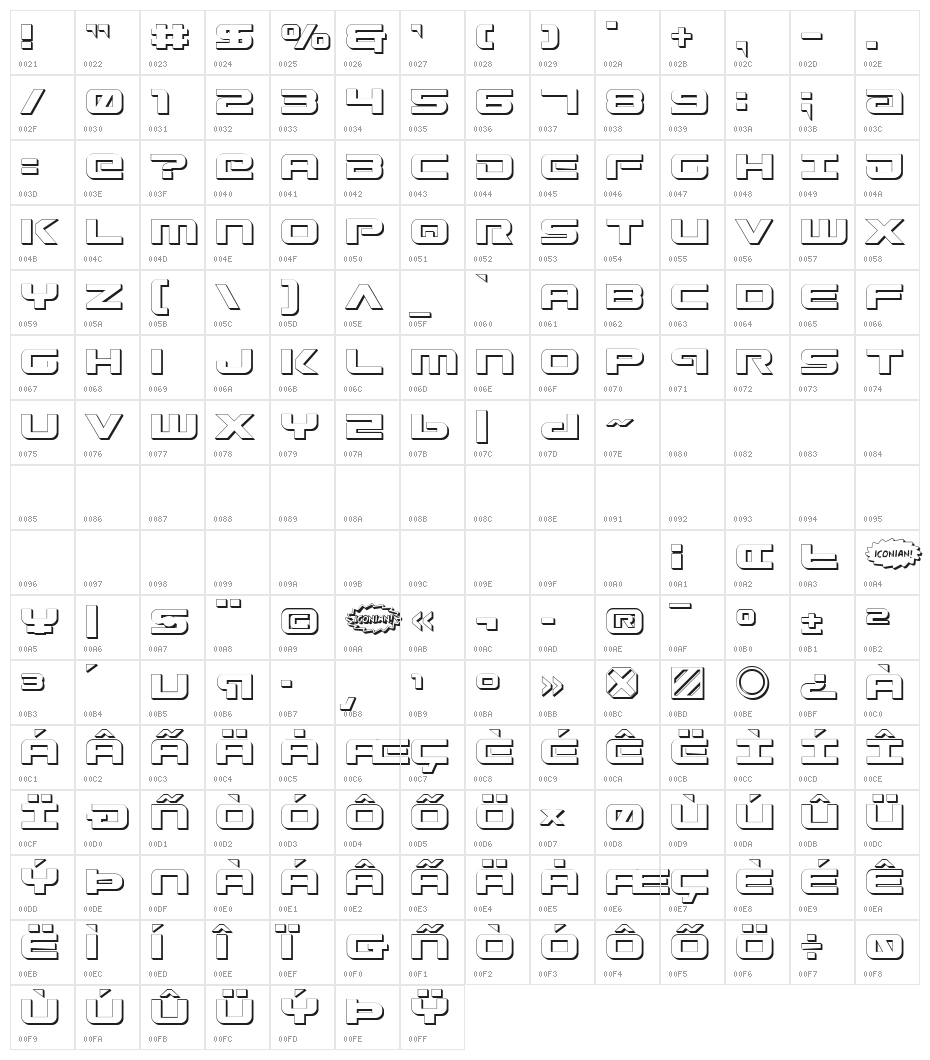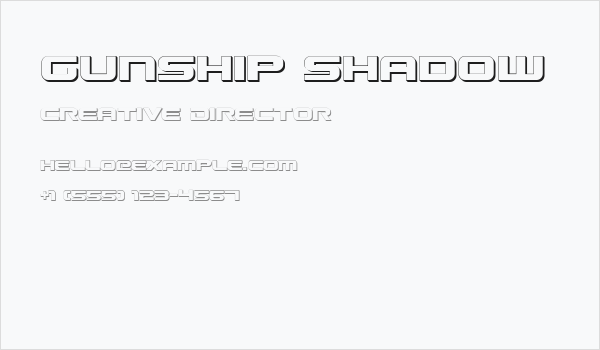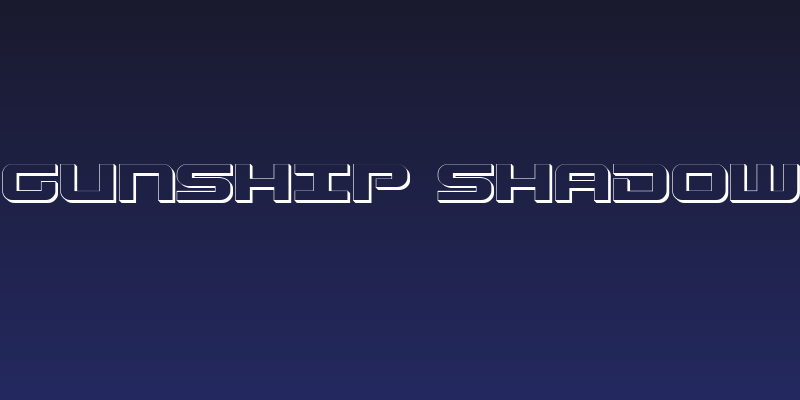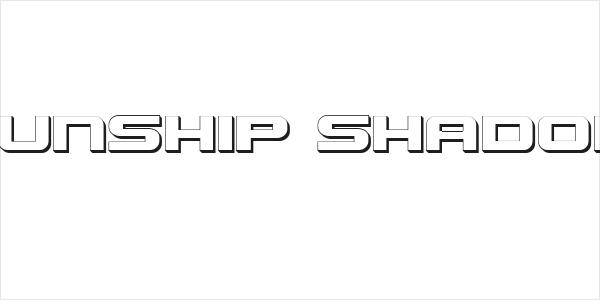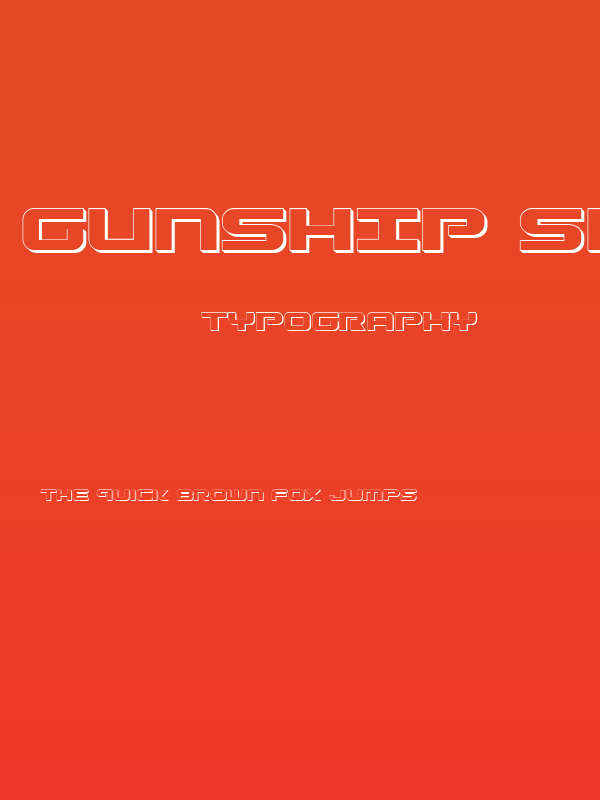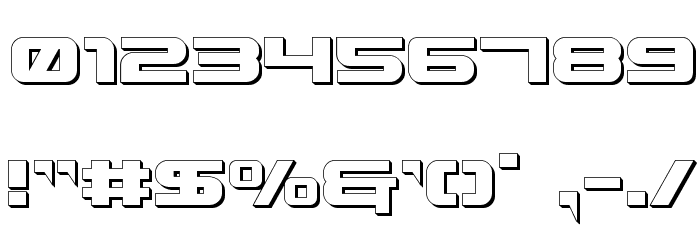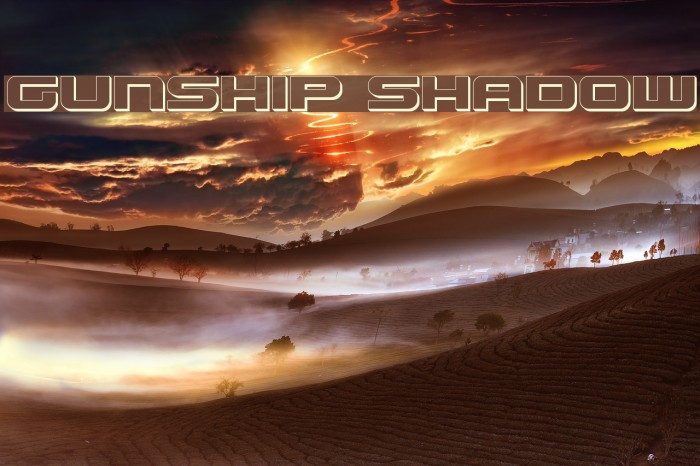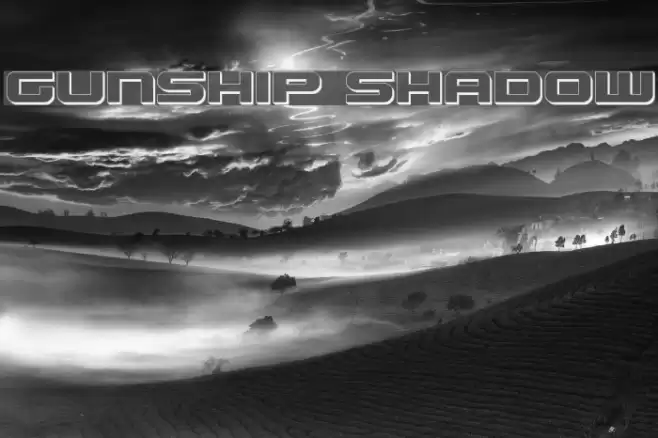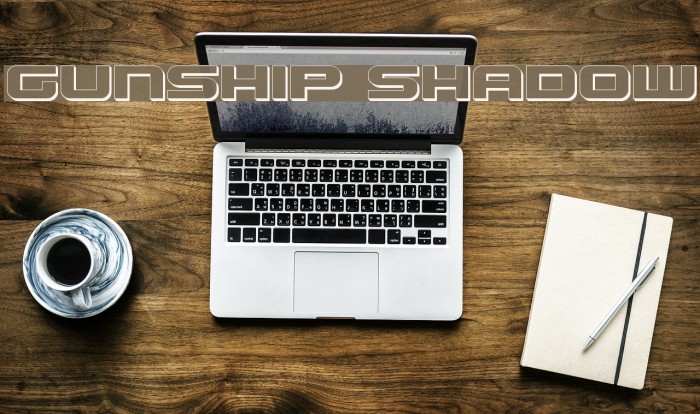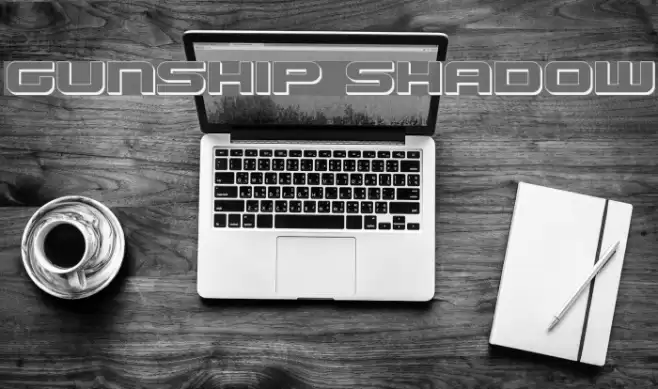
Gunship Shadow Font
Gunship Shadow Description
This font features a bold, futuristic design with a distinct outline style. The characters are geometric and angular, giving a sense of modernity and technology. The uppercase letters are uniform in height, while the lowercase letters maintain a consistent style with slight variations in size. The numerals are equally bold and follow the same geometric pattern, ensuring readability and consistency across different uses. Special characters are included, maintaining the same aesthetic, which makes this font versatile for various applications. The overall design is clean and sharp, with a focus on clarity and impact.
| Overall Style | Futuristic |
| Proposed Projects | Ideal for sci-fi themed projects, video game titles, tech branding, and futuristic posters. |